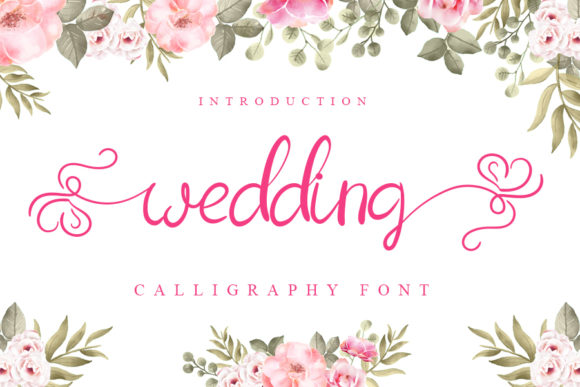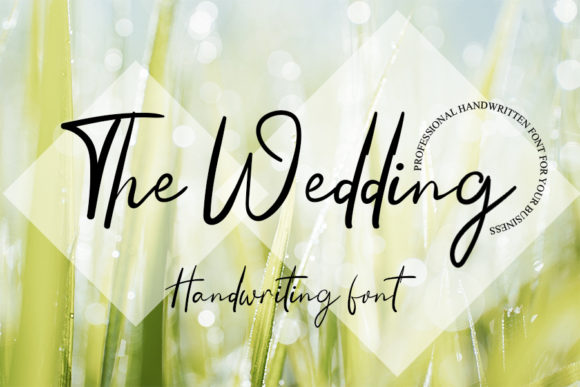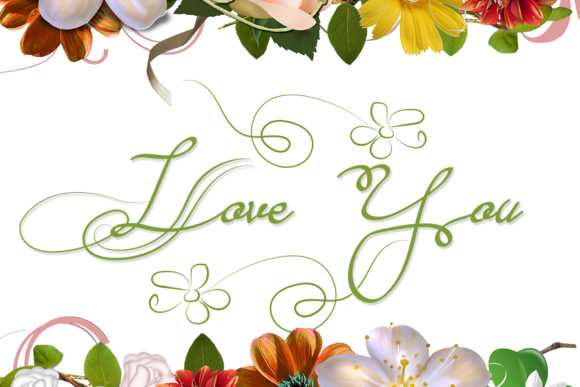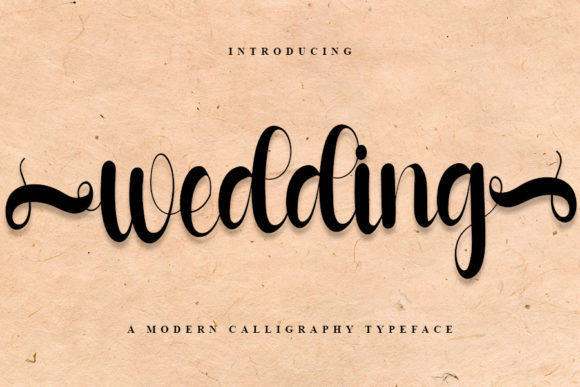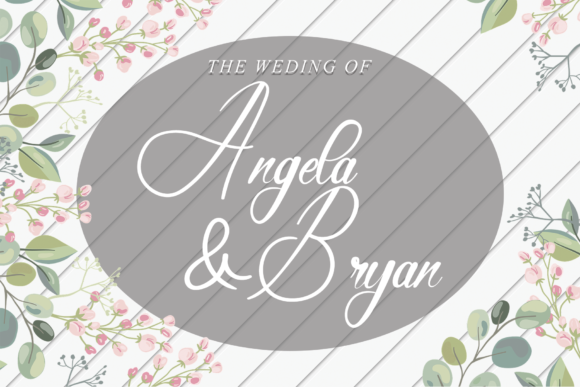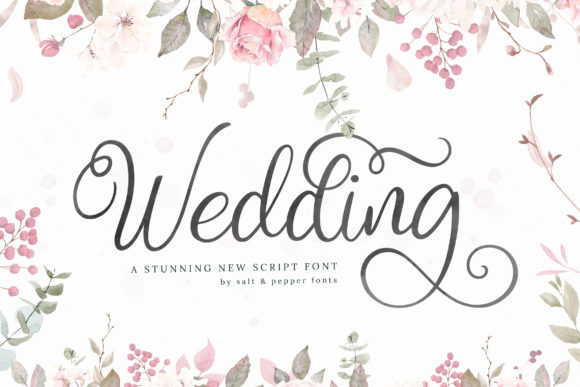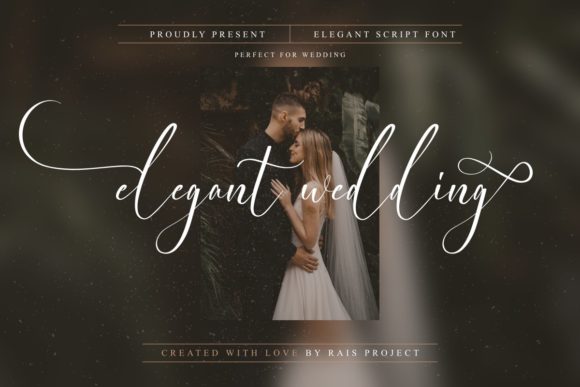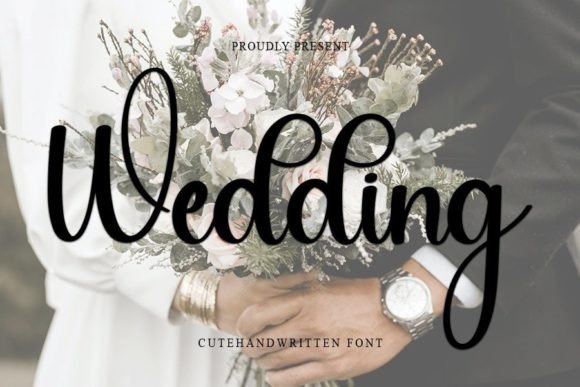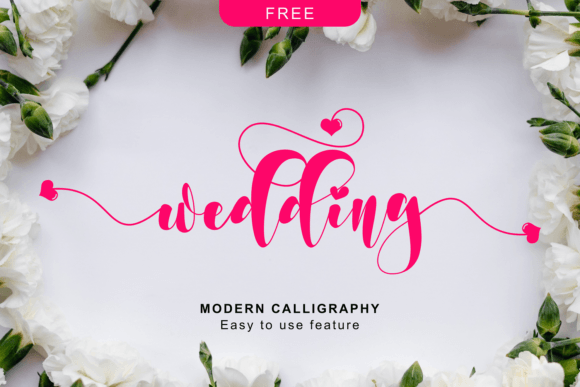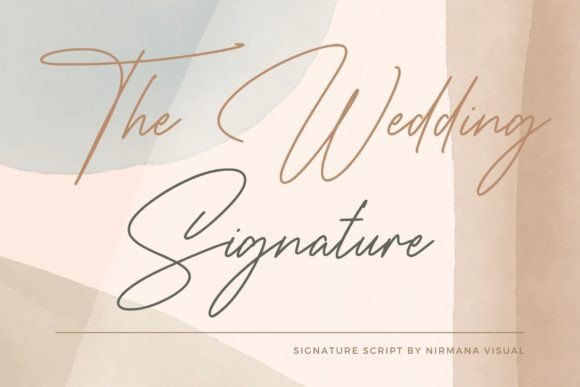
32 Beautiful Wedding Fonts for Romantic Invitations
Wedding Fonts & Romantic Typography
Discover beautiful wedding fonts for romantic invitations, wedding stationery, save-the-dates, menus, signs, programs, place cards, social media graphics, and elegant celebration details. From flowing scripts to sophisticated display styles, these fonts can help create a timeless and personal wedding aesthetic.
Why typography matters for wedding stationery
Wedding typography helps establish the mood before guests even arrive at the celebration. Elegant scripts can feel romantic and personal, while refined display fonts can create a more classic or editorial look. Pairing a decorative wedding font with a simple supporting typeface can also make invitations easier to read while keeping the overall design sophisticated.
How to Choose a Wedding Font
The right wedding font depends on the mood, format, and overall visual identity of the celebration. Before choosing a typeface, consider whether the design should feel romantic, classic, modern, whimsical, elegant, rustic, or fashion-inspired.
Script fonts are especially useful for names, invitations, and short phrases, while more structured fonts can work better for dates, venue details, menus, and longer blocks of information. A thoughtful combination can give your stationery both personality and readability.
33 Beautiful Wedding Fonts
Here are 33 wedding fonts suited to romantic invitations, wedding stationery, signage, branding, social graphics, and other celebration designs.
Breathine wedding font
01 · Romantic Wedding Script
Breathine
Breathine is a romantic script style that can bring an elegant, personal character to wedding stationery. Its flowing appearance works beautifully for names, invitation headings, quotes, and other short decorative text.
Best for: Wedding invitations, couple names, save-the-dates, romantic stationery, and signage.
Andalucia wedding font
02 · Elegant Script
Andalucia
Andalucia offers a graceful handwritten feel that fits romantic wedding themes. It can add movement and softness to invitation titles while remaining expressive enough for names and meaningful phrases.
Best for: Romantic invitations, wedding logos, names, greeting cards, and stationery.
Bright Darling Duo wedding font
03 · Wedding Font Duo
Bright Darling Duo
Bright Darling Duo is designed for combinations, making it useful when you want contrast between expressive lettering and supporting typography. The duo format can help create coordinated wedding invitations and stationery with a layered romantic look.
Best for: Invitations, wedding stationery, names, headings, menus, and coordinated designs.
Rellista Script wedding font
04 · Flowing Wedding Script
Rellista Script
Rellista Script has an expressive handwritten character that works well when a wedding design needs a distinctly romantic touch. Its decorative feel is especially suitable for prominent names and short invitation text.
Best for: Wedding names, invitations, romantic quotes, signs, and social graphics.
Bailenson Font wedding font
05 · Elegant Display
Bailenson Font
Bailenson Font brings a polished decorative quality to wedding designs. It can work as a statement typeface for invitation names, titles, and other elements where typography needs to become part of the visual styling.
Best for: Wedding invitations, titles, names, signage, stationery, and decorative headings.
Wedding Font by Musafir LAB
06 · Wedding Script
Wedding Font — Musafir LAB
This wedding-focused font from Musafir LAB is suited to romantic celebration graphics. Its dedicated wedding character makes it a natural choice for invitation titles, names, signage, and other prominent details.
Best for: Wedding invitations, signs, couple names, stationery, and celebration graphics.
Wedding Font by PiPi Creative
07 · Romantic Wedding Font
Wedding Font — PiPi Creative
Wedding Font by PiPi Creative is a decorative option for creating romantic typography across wedding stationery. It can be used to give names and short phrases a more personal and celebratory appearance.
Best for: Invitations, wedding names, save-the-dates, signs, and social media posts.
Wedding Font by andikastudio
08 · Elegant Wedding Style
Start with one expressive font for names or the main title and combine it with a restrained typeface for details. Consistent spacing, hierarchy, and alignment are just as important as the fonts themselves.